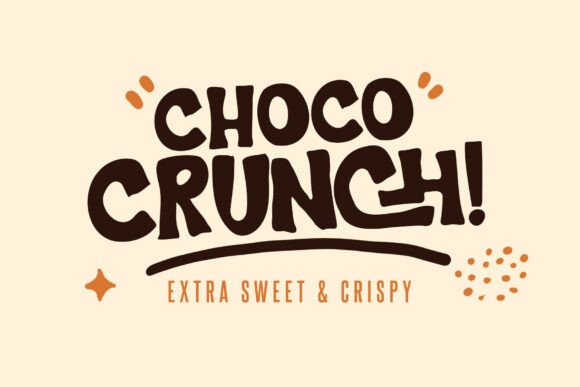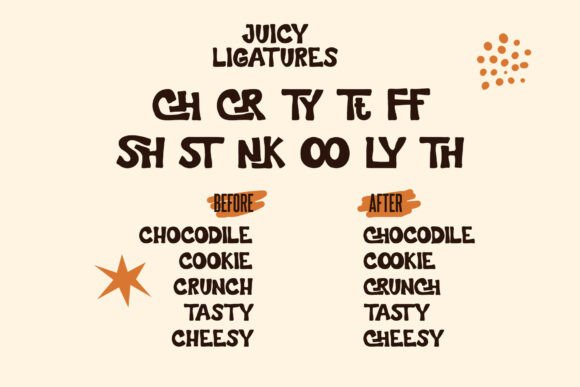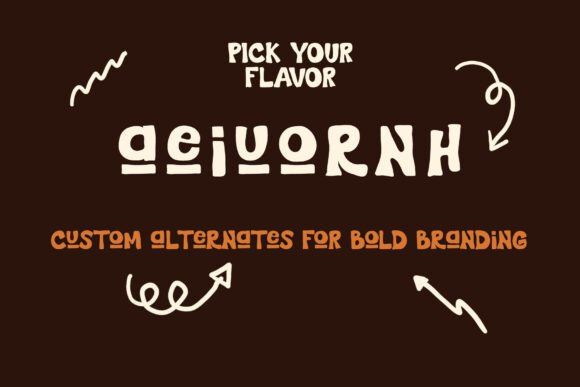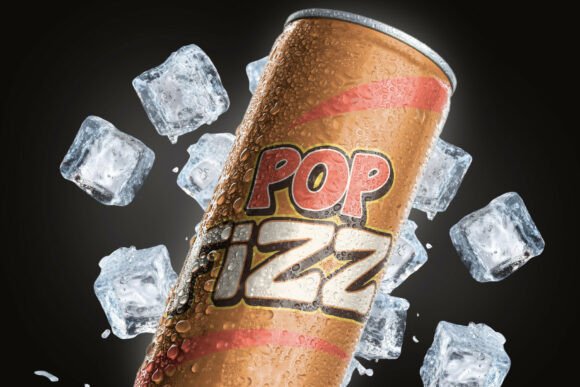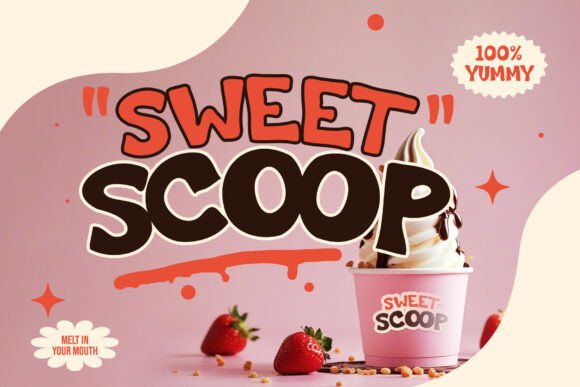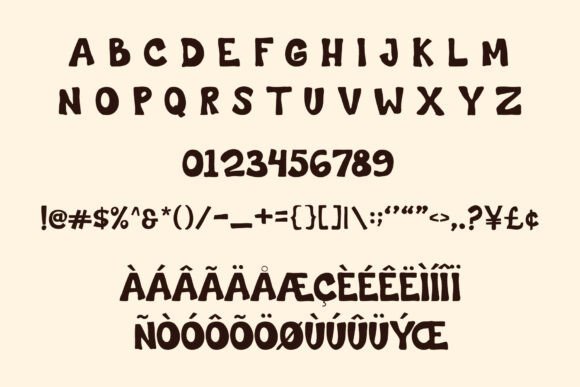
The Sweetest Font You’ll Ever Meet: Chocodile 🍫
I’ll never forget the time I was working on a branding project for a new dessert shop. My client wanted a font that was playful, bold, and would make their customers’ mouths water. I scoured the internet, tried out countless fonts, but nothing seemed quite right. That was until I stumbled upon Chocodile – a fun, snack-inspired typeface that instantly captured the sweet and playful vibe I was looking for.
First Impressions: A Bold and Playful Display Font
Chocodile is a bold, playful display font that’s inspired by modern snack branding, chocolate packaging, and dopamine-style typography trends. Its chunky organic shapes, juicy ligatures, and fun personality make it perfect for food branding, posters, packaging, cafe menus, logos, social media, and playful editorial designs.
- ✨ Unique and eye-catching design: Chocodile’s bold and playful design makes it perfect for grabbing attention and adding a touch of fun to any design project.
- ✅ Highly brandable: The font’s modern and fresh feel makes it easy to incorporate into any brand’s visual identity.
- 🎉 Fun personality: Chocodile’s playful vibe is infectious and can add a touch of whimsy to any design project.
While Chocodile is an amazing font, there are a few things to keep in mind:
- 🤔 Limited use cases: Due to its bold and playful nature, Chocodile may not be the best fit for more formal or traditional design projects.
- ⚠️ Legibility at small sizes: As with many display fonts, Chocodile may not be legible at very small sizes, so it’s best to use it at larger sizes where its unique design can shine.
- Experiment with Chocodile’s OpenType features, such as ligatures and stylistic alternates, to add more personality to your design.
The Designer Inspiration Behind Chocodile
Chocodile was designed with the goal of creating a font that was both fun and modern. The designer wanted to capture the playful spirit of snack branding and chocolate packaging, while also creating a font that was highly brandable and versatile.
Q: What is Chocodile font?
A: Chocodile is a bold, playful display font inspired by modern snack branding, chocolate packaging, and dopamine-style typography trends.
Q: What can I use Chocodile font for?
A: Chocodile is perfect for food branding, posters, packaging, cafe menus, logos, social media, and playful editorial designs.